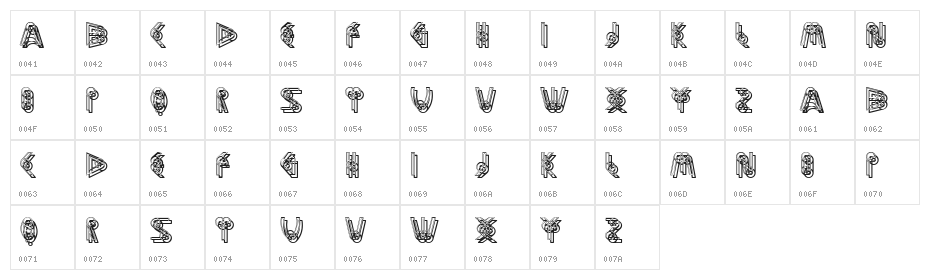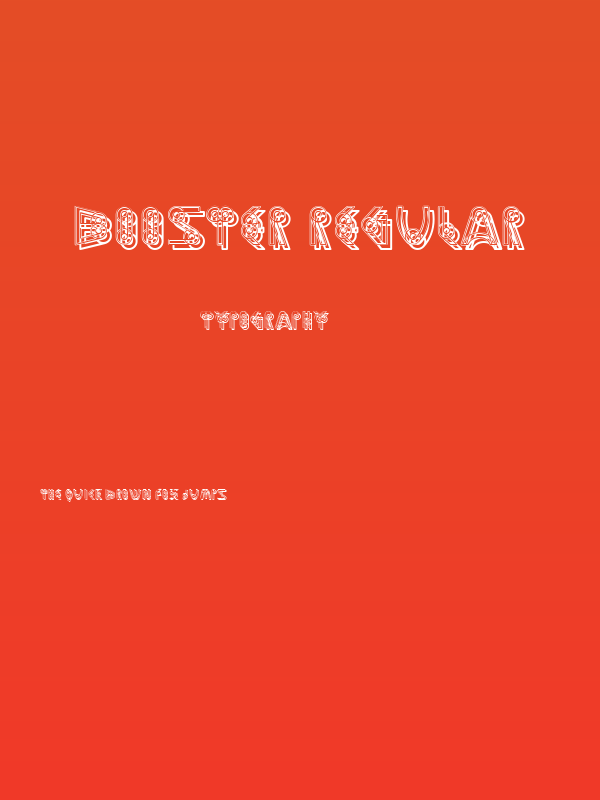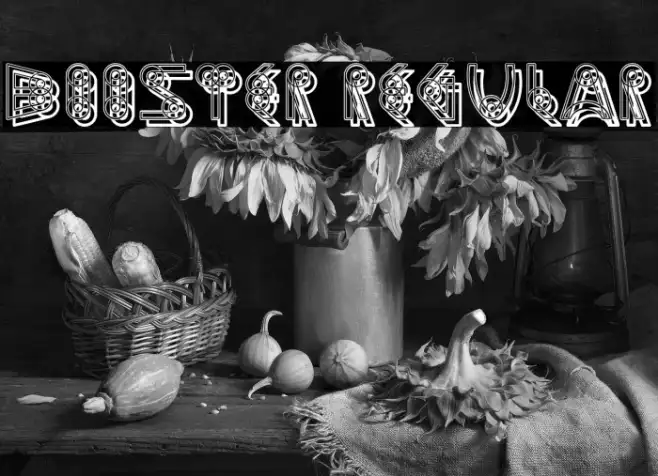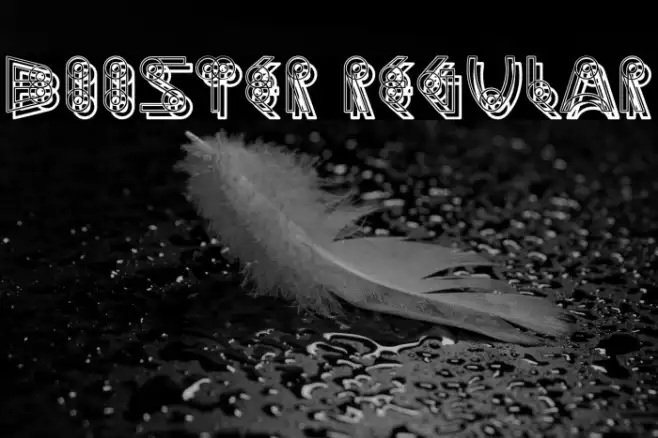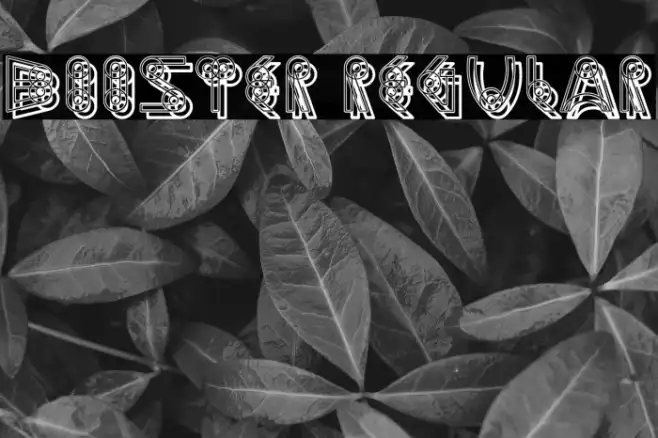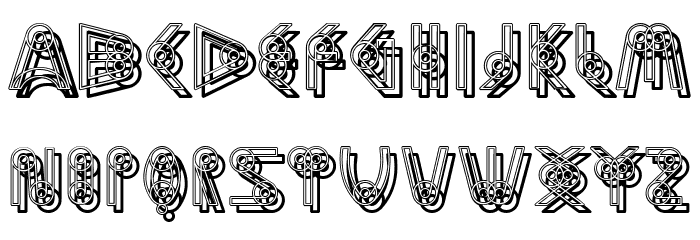
Booster Regular Font
Booster Regular Description
This font features a bold and intricate design with a distinct geometric and mechanical aesthetic. Each character is composed of multiple layers and lines, creating a sense of depth and complexity. The letters are adorned with circular and angular elements, giving them a futuristic and industrial feel. The overall appearance is highly decorative, making it stand out in any design. The font's unique style is both eye-catching and versatile, suitable for a variety of creative projects.
| Overall Style | Modern, Futuristic, Industrial |
| Proposed Projects | Ideal for use in posters, album covers, video game titles, and branding that requires a modern and edgy look. |